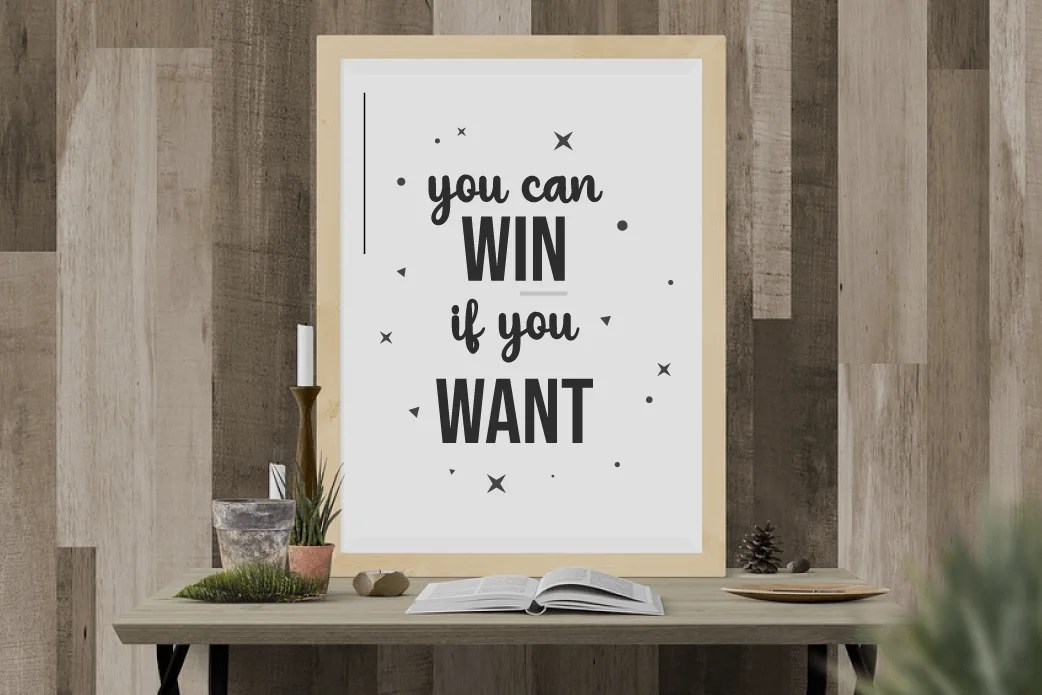
Finding the right handwriting fonts for packaging means balancing warmth with legibility — a label that feels handmade without becoming hard to read on a small jar or box. Here are eight Twinletter script fonts built around that same craft-and-quote positioning, each with a slightly different character based on how Twinletter itself describes them.
A handwritten script signals “made with care” in a way clean sans serif type can’t — which is exactly why handwriting fonts for packaging show up so often on craft goods, food packaging, and quote-driven branding. Choosing well still matters, though: as University of Michigan’s brand typography guide points out, legibility comes down to specifics like generous spacing and a taller x-height, not just an appealing style — worth checking on any script font before it goes on a small label where every letter has to hold up.
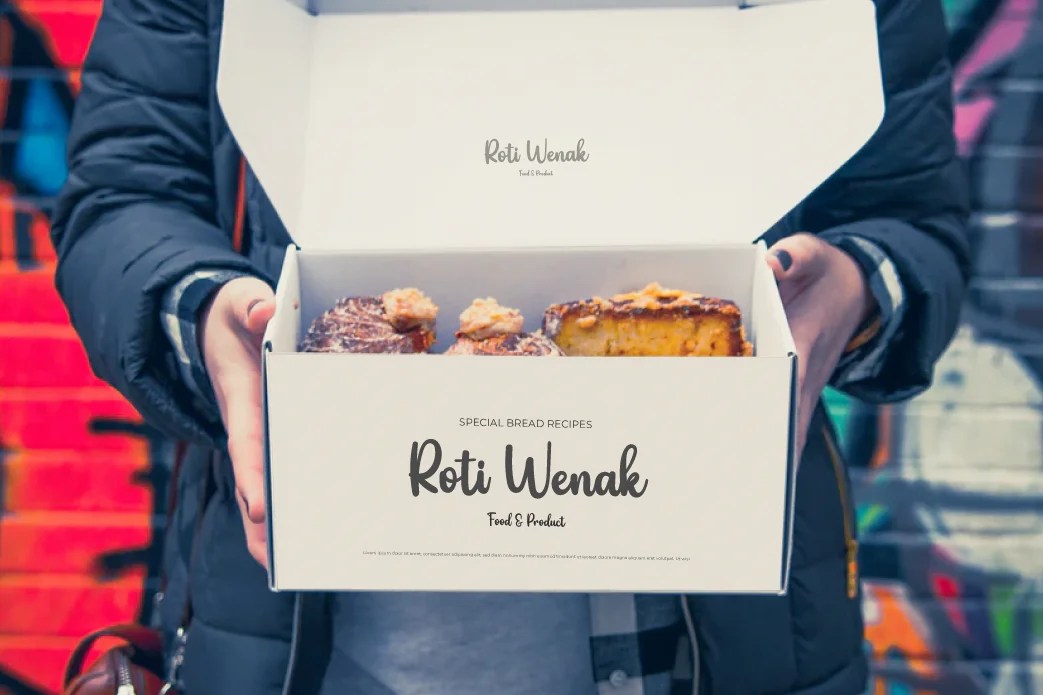
Newest — described around its “characteristic beautiful curves on each letter” and attention to visual harmony, making it a solid pick when the brand wants a graceful, flowing feel across packaging and quote graphics.
Astringe — explicitly positioned for “various promotional design media or product labels,” making it one of the more directly packaging-oriented options in this group.
Sovett — described as “flexible in every typeface,” a reasonable choice when a brand needs one script to stretch across several different design formats.
Destain — noted for working well “combined with other sans and serif letters,” making it a fit for a packaging system that pairs a script accent with a cleaner primary typeface.
Battiest — described with “strong characteristics in its curves” for a more beautiful and elegant feel, suited to packaging that wants a bolder, more expressive script.
Ramesty — presented as a “bunch of fonts that are charming and elegant,” positioning it as a flexible family rather than a single fixed style.
Goldest — described around a “charming, elegant and modern” balance, a middle-ground option between delicate and bold.
Gabust — explicitly described as having “a feminine character” and being “sweet in its use,” making it the most overtly soft and feminine option in the group.
Beyond those individual leanings, all eight handwriting fonts for packaging share the same underlying use case and feature set. Twinletter positions all of them for craft goods, children’s writing, adventure posters, food banner titles, wedding invitations, product packaging logos, quotes, social media page covers, furniture banner headlines, and book covers — so any of the eight can reasonably cover a full packaging and marketing system, not just a single label.
How different are these eight fonts from each other? They share the same core positioning and feature set, but each product page highlights a different character trait — from Gabust’s feminine, sweet style to Battiest’s bolder, more expressive curves — so it’s worth comparing two or three type testers directly rather than picking these handwriting fonts for packaging by name alone.
Can these fonts be used for anything besides packaging? Yes — all eight are also positioned for craft goods, wedding invitations, quotes, social media covers, and book covers, alongside product packaging and food labels.
Do these fonts support languages other than English? Yes, all eight include multilingual support across 19 European languages, making them usable for packaging and branding outside English-only markets.